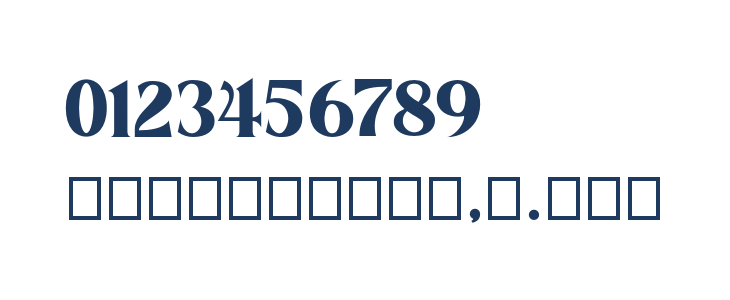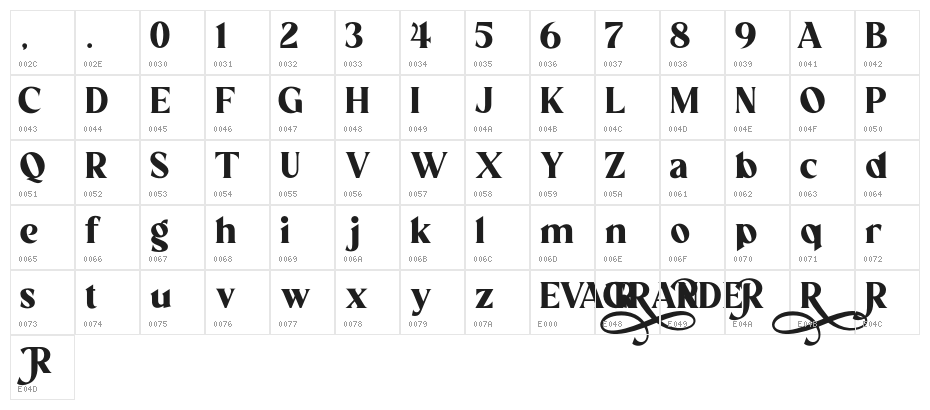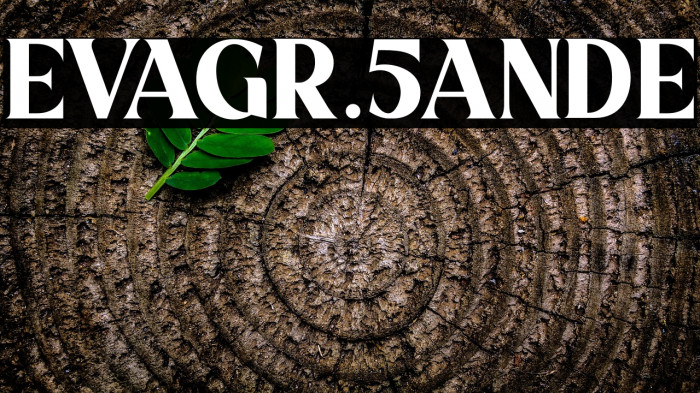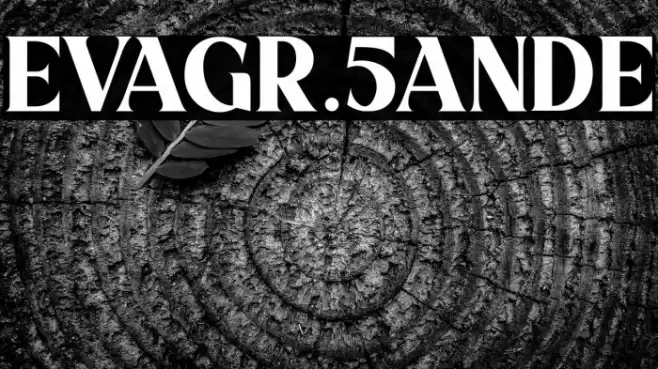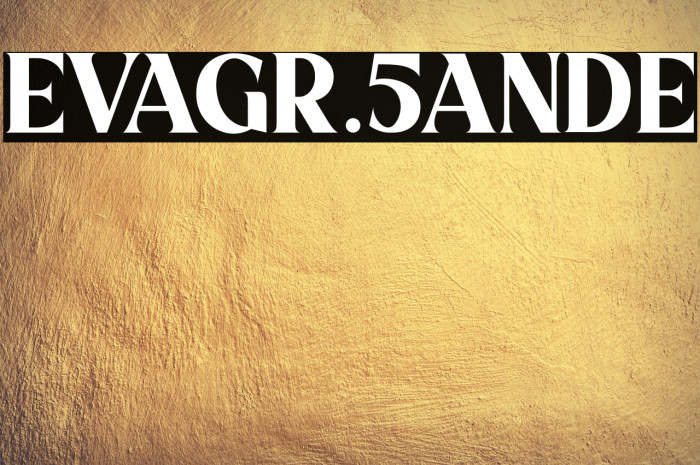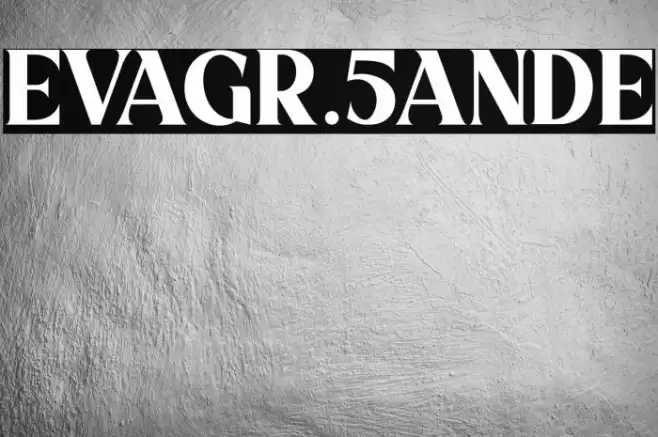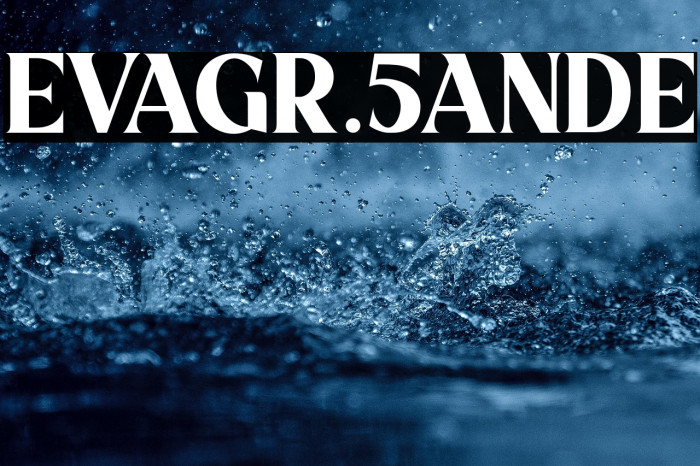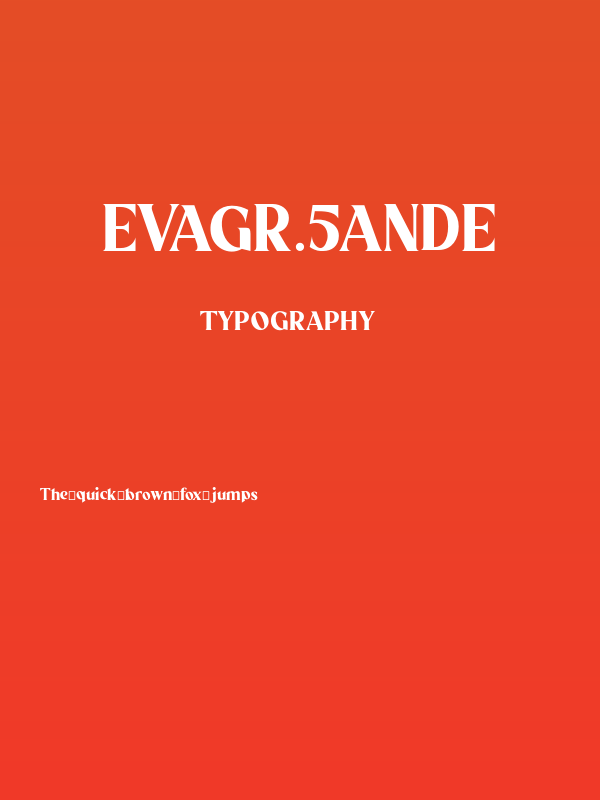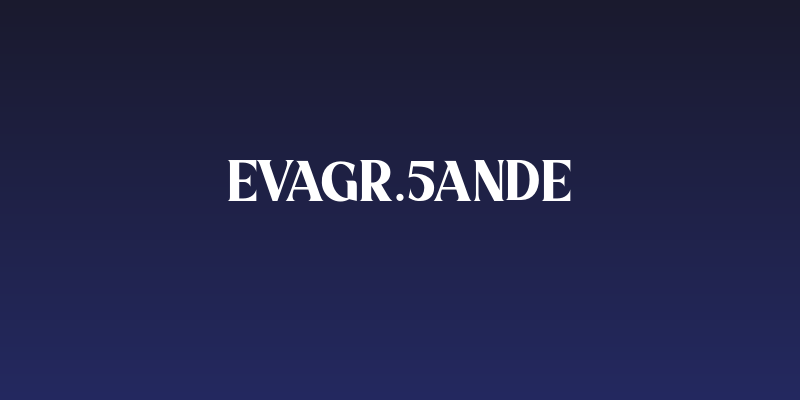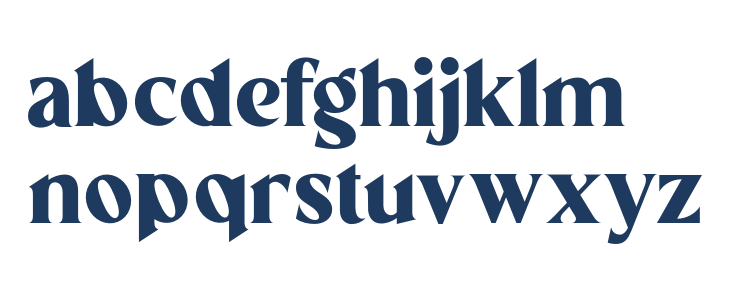
EVAGR.5ANDE Font
EVAGR.5ANDE Description
This font features a bold and dramatic style with high contrast between thick and thin strokes, giving it a strong and authoritative presence. The serifs are pronounced and angular, adding a touch of elegance and sophistication. The uppercase letters are tall and commanding, while the lowercase letters maintain a consistent flow with rounded forms. The numerals are distinct and bold, ensuring clarity and readability. The overall design is reminiscent of classic serif fonts but with a modern twist, making it suitable for a variety of applications.
| Overall Style | Modern Classic |
| Use Case | Headlines, Logos, Editorial Design |
| Proposed Projects | Ideal for editorial design, book covers, branding projects, and high-impact headlines. |